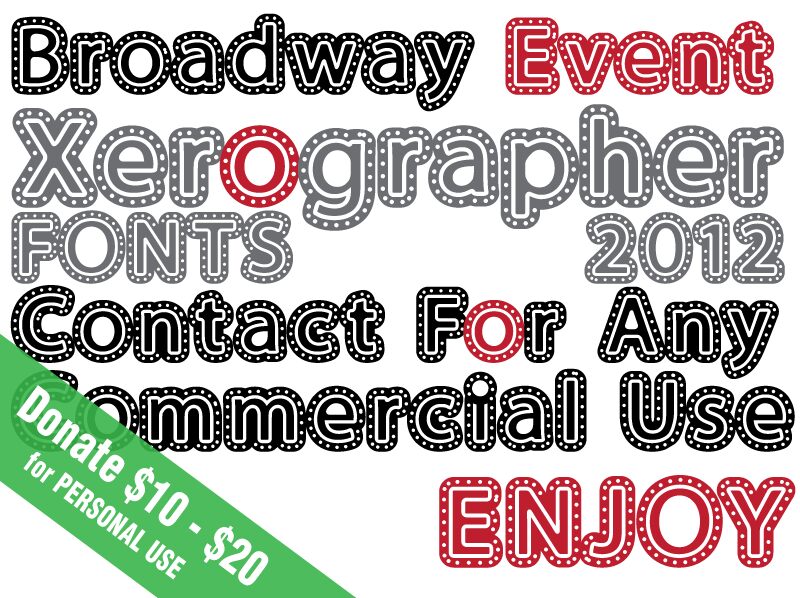
Broadway Event by Xerographer Fonts is a free decorative display font modeled on illuminated theater signage. Broad, rounded letters carry a dark outer border, a slim inner line, and neat rows of circular bulbs that turn each character into a miniature marquee.
A theater poster is its clearest setting, especially for musicals, revues, or cabaret nights. The same show-business treatment suits event invitations, venue signage, and entertainment packaging. Those bulbs connect the wording to stage lights and make the type part of the show's imagery.